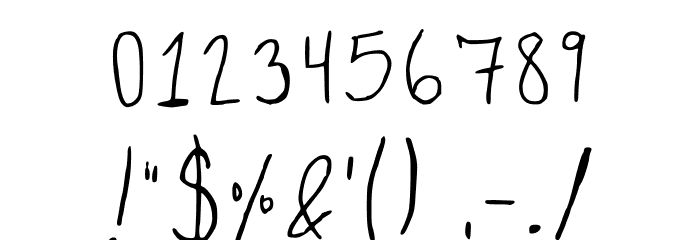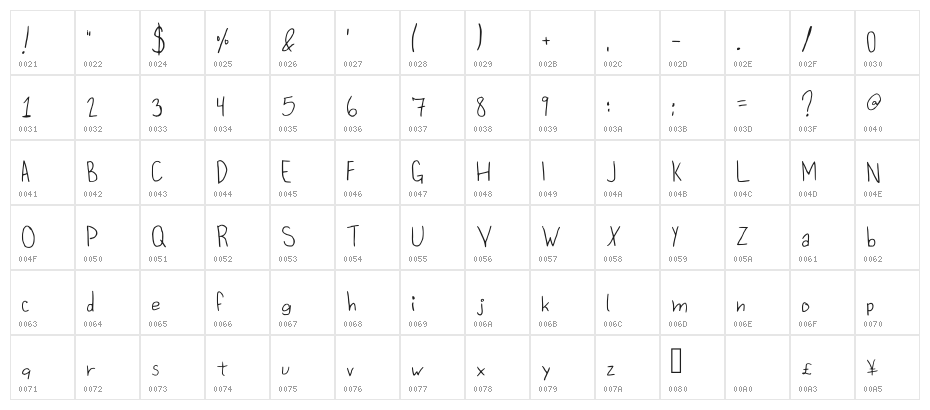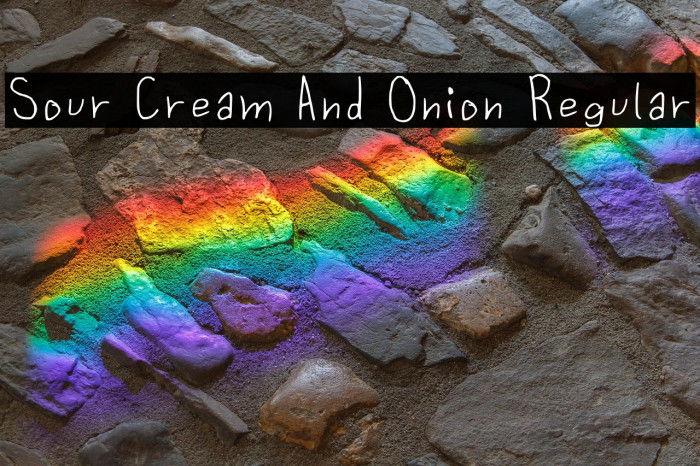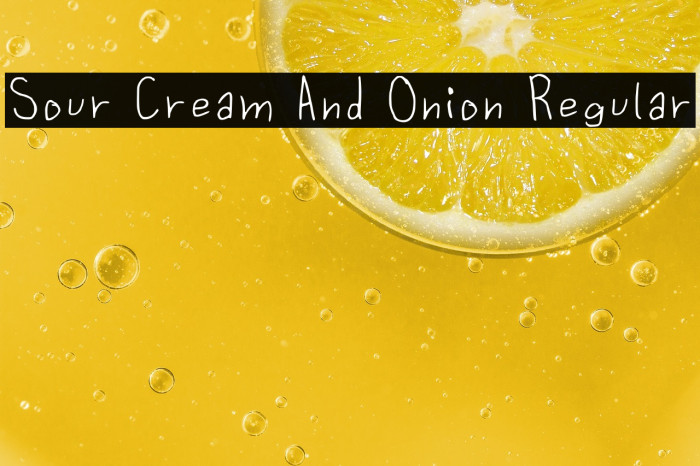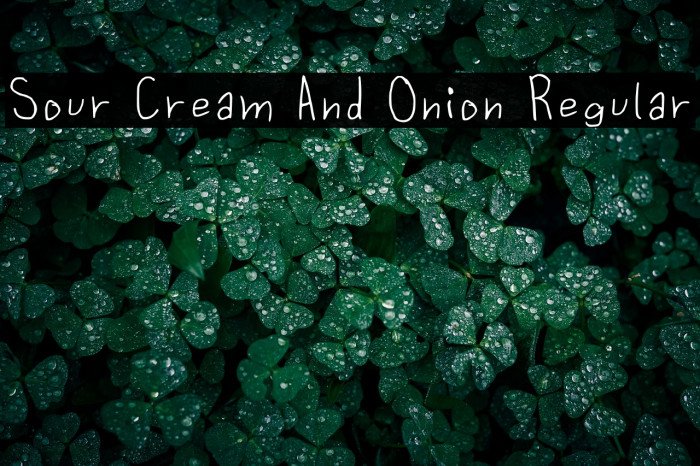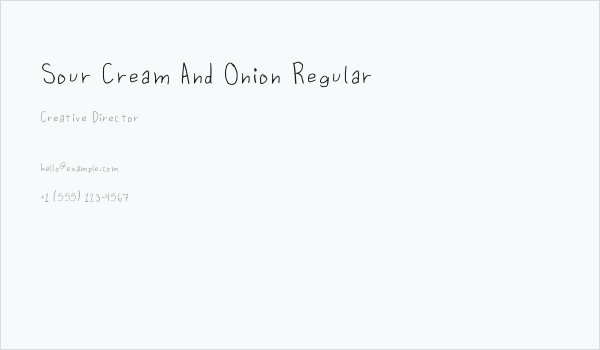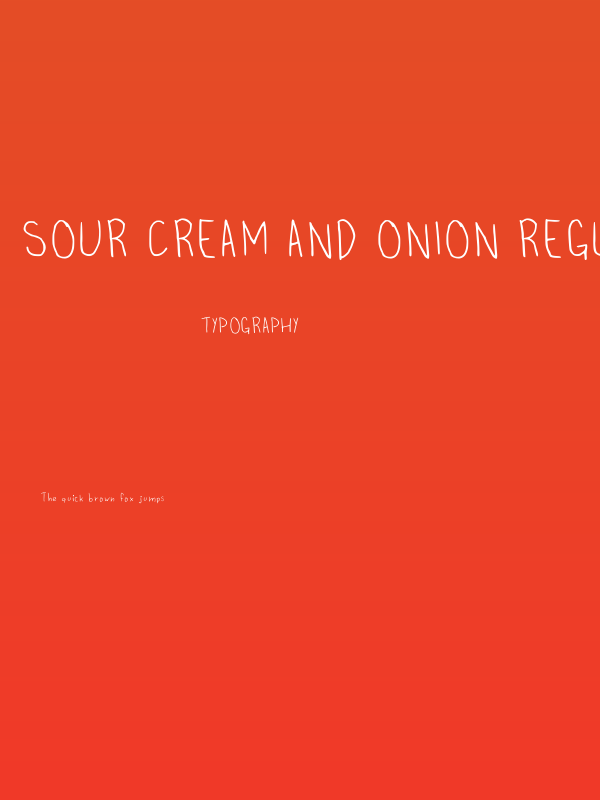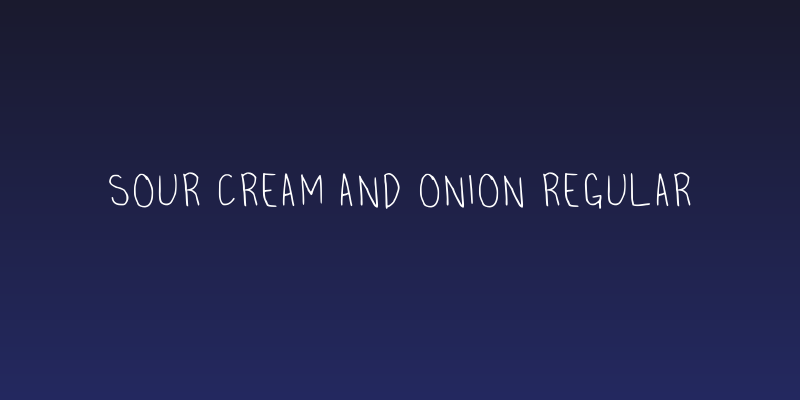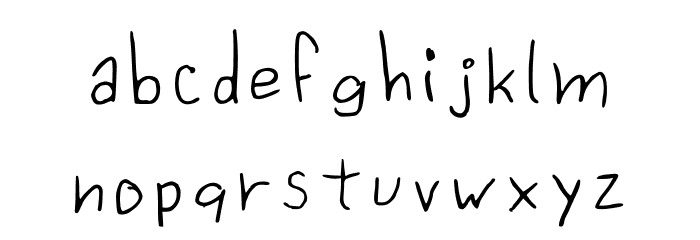
Sour Cream And Onion Regular Font
Sour Cream And Onion Regular Description
This font features a playful and casual handwritten style, characterized by its irregular strokes and slightly uneven baseline. The letters have a natural, organic feel, with varying thickness that adds to its charm. The uppercase and lowercase letters maintain a consistent style, with a slightly narrow appearance. The numbers and special characters follow the same informal aesthetic, making it suitable for projects that require a personal touch. Its unique style is both approachable and friendly, perfect for conveying a sense of warmth and creativity.